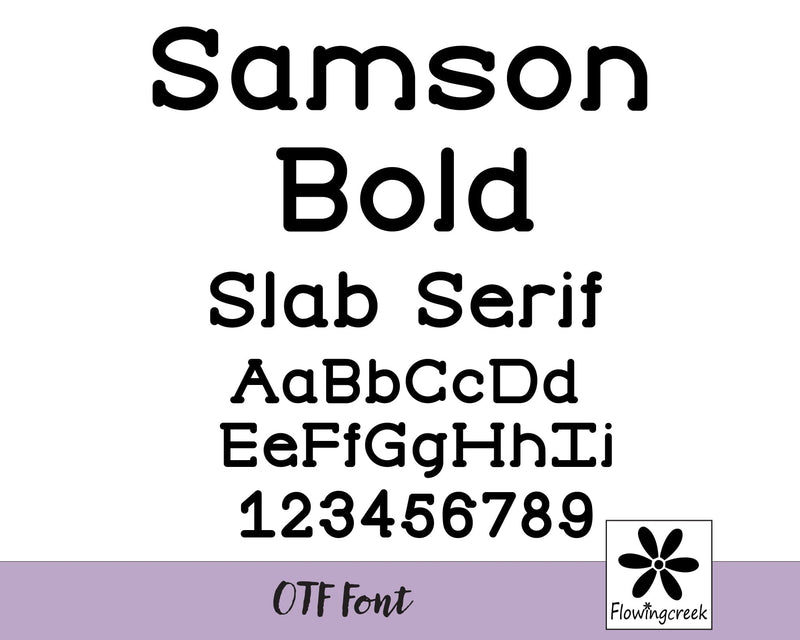
Samson Bold – Chunky Slab Serif Font | Cut Friendly
Samson Bold is a playful slab-serif font designed with crafters in mind! This chunky, rounded serif style features smooth curves, clean nodes, and thick strokes, making it an excellent cut-friendly font for Cricut, Silhouette, Glowforge, and other cutting machines.
This typeface is easy to weed, great for vinyl projects, and perfect for HTV, paper crafts, labels, decals, signs, engraving, and print projects. Its friendly, bold style works beautifully for kids’ designs, classroom decor, greeting cards, branding, stickers, tumblers, and more.
Bring cheerful character and smooth-cut performance to all your crafting projects with Samson Bold!